Choosing the right font size for email is crucial in delivering an effective and professional message. Whether you’re crafting a business email, building an email marketing campaign, or designing a personal email signature, the font size and style can make or break the readability and aesthetic appeal of your emails.
From web-safe fonts to customized styles, this guide will walk you through everything you need to know about optimizing font size for email.
Font Size For Email – Guideline
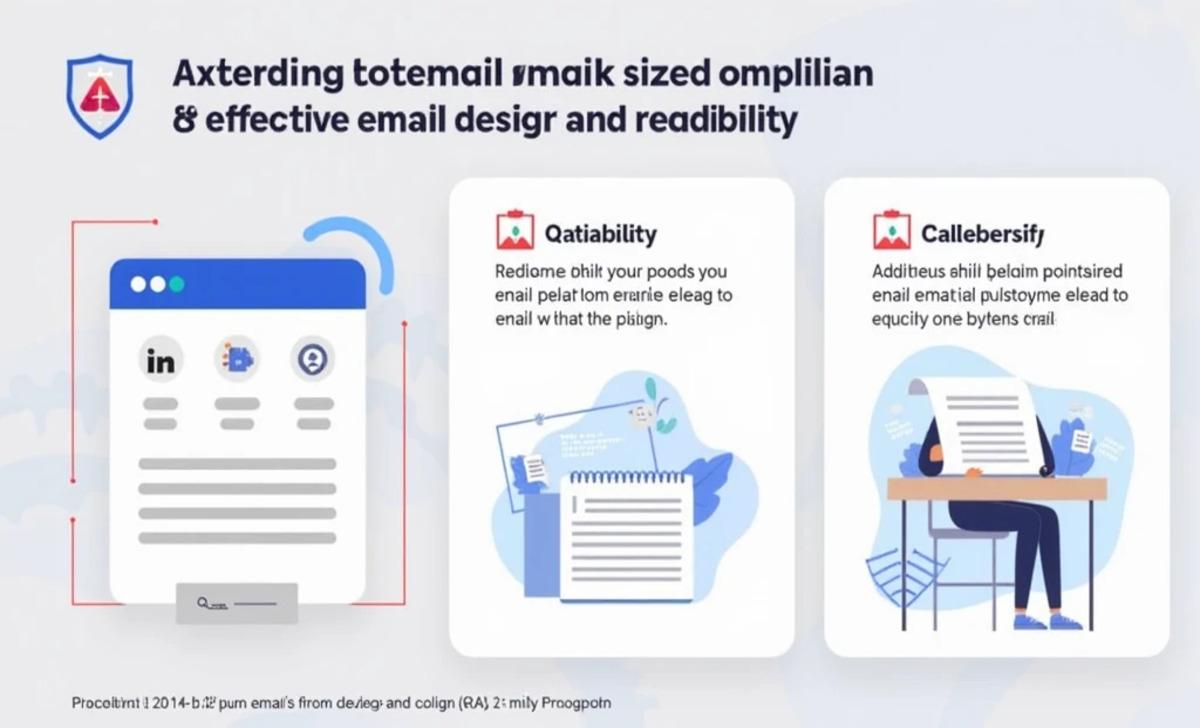
Font size plays a crucial role in how your email content is perceived. A font that’s too small can hinder readability, while a font that’s too large can overwhelm the layout. Finding the right balance is essential for effective email design.
In email marketing, the choice of font size and style directly affects your campaign’s success. Since emails are typically skimmed quickly, readability is vital. Additionally, using a consistent email font across different devices and platforms, like Apple Mail and Gmail, ensures a smooth reading experience for all users.
Standard Font Size For Emails
The general recommendation for the default font size in em ail body content ranges between 12 to 14 points. This range strikes a balance between readability and preserving space for more content. It works well with most web safe fonts, ensuring consistent display across major email clients like Apple Mail, Outlook, and Gmail.
For headlines or titles, a larger font size of 18 to 22 points is generally recommended to create a clear visual hierarchy. Using larger font sizes for headings draws the reader’s attention to key sections and makes emails easier to skim.
Font Size In Email Signatures
Your email signature should also maintain readability, but it should be slightly smaller than the main body text to keep the overall design clean and compact. A font size between 10 to 12 points is ideal for signatures. When selecting an email signature font, stick to email safe fonts like Arial, Georgia, or Tahoma to ensure proper rendering across various devices and platforms.
Choosing The Right Font Size For Email Marketing
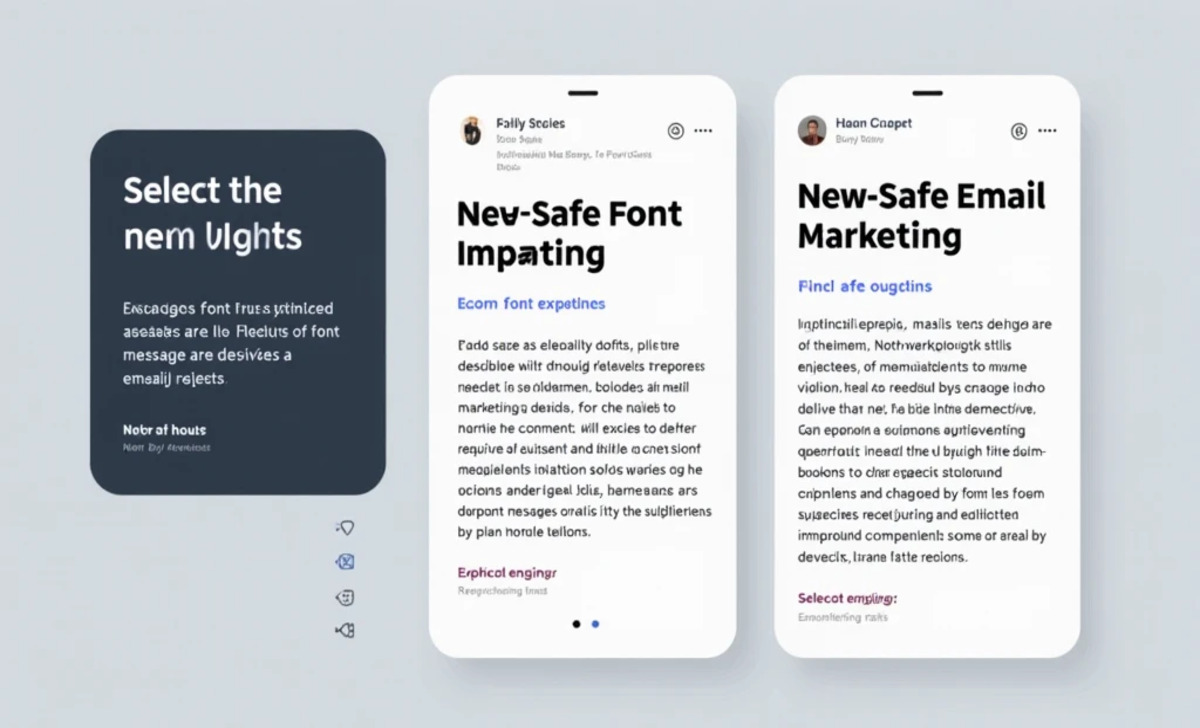
When crafting an email marketing campaign, readability and aesthetics should always be a priority. Since emails are often opened on mobile devices, using web safe fonts ensures that the text displays correctly. Pairing the right font style with an optimal font size can improve user engagement and click-through rates.
For email marketing messages, the default font size for body text should be around 14 points. This is large enough to be readable but compact enough to allow for more content in a single view. Titles and headings should use larger fonts to distinguish them from the body, while CTAs (Calls-to-Action) should be bold and prominent.
Best Fonts For Emails
The best font for email depends on your audience and the nature of your communication. Some of the most commonly used web fonts and email safe fonts include:
- Arial (Sans-serif, web-safe)
- Helvetica (Sans-serif, modern look)
- Georgia (Serif, classic style)
- Verdana (Sans-serif, highly readable)
Using a web safe font ensures that your email client renders the text properly. If you choose a custom font like those available in Google Fonts, be sure to include a fallback font in your font stack to ensure that, in case the custom font doesn’t load, a default font is used.
Using Decorative And Script Fonts
While decorative fonts or script fonts may add a unique visual element, they should be used sparingly. Fancy fonts can harm readability and appear unprofessional in a business email or marketing campaign. If you use a decorative font, make sure it’s for titles or short text, and always include a fallback font to maintain legibility.
Font Size For Email Newsletters
In an email newsletter, where you may be dealing with a large amount of text, readability is crucial. A font size of 12 to 14 points is generally best for the body text, while headings should range between 18 to 22 points. For CTAs, a bold font with a larger font size ensures that readers don’t miss key action prompts.
Choosing the right font size for email is essential for improving readability, engagement, and the overall effectiveness of your email marketing campaigns. Always consider using web-safe fonts and optimal sizes and testing your email design to ensure that your message is clear and professional across all devices.
Whether you’re crafting a business email, building an email newsletter, or designing an email signature, the right font size and style can make a significant impact.
1.What Is The Best Font Size For Email Body Text?
The recommended font size for email body text is between 12 to 14 points for optimal readability.
2.Which Fonts Are Considered Email-Safe?
Email-safe fonts include Arial, Helvetica, Georgia, Tahoma, Times New Roman, and Verdana.
3.What Font Size Should Be Used For An Email Signature?
A font size of 10 to 12 points is ideal for an email signature.
4.Can I Use Custom Fonts In Emails?
Yes, but ensure you have a fallback font like Arial or Helvetica to maintain readability in unsupported email clients.
5.What Is A Fallback Font In Email Design?
A fallback font is a standard font like Arial or Georgia used if the custom font fails to load in the email client.